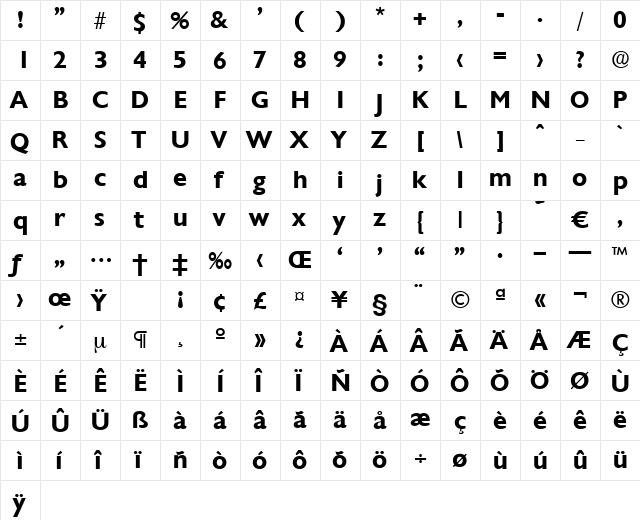
Chantilly-DemiBold Regular
Design Context for Chantilly-DemiBold Typeface
Chantilly-DemiBold takes a measured approach to typography — its balanced proportions and neutral character make it a reliable workhorse for both digital and print work. Its bold stroke weight gives it real presence on the page.